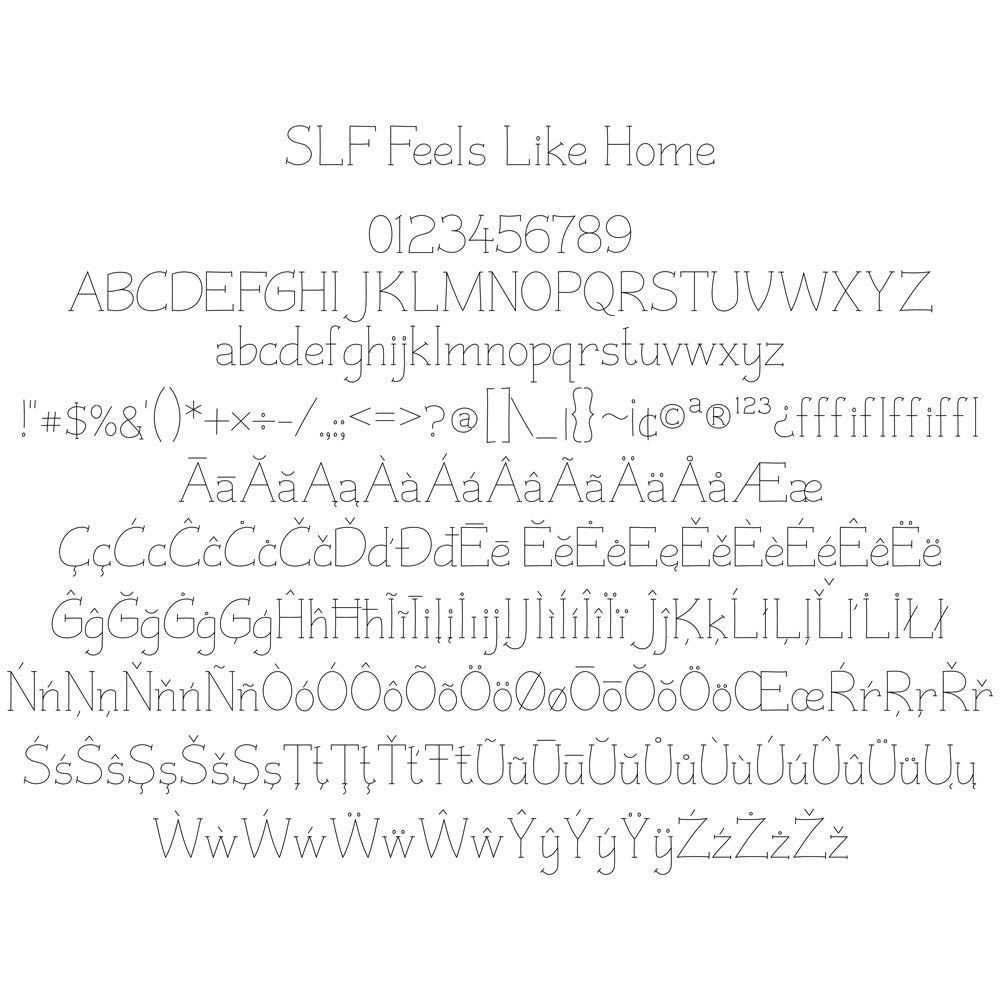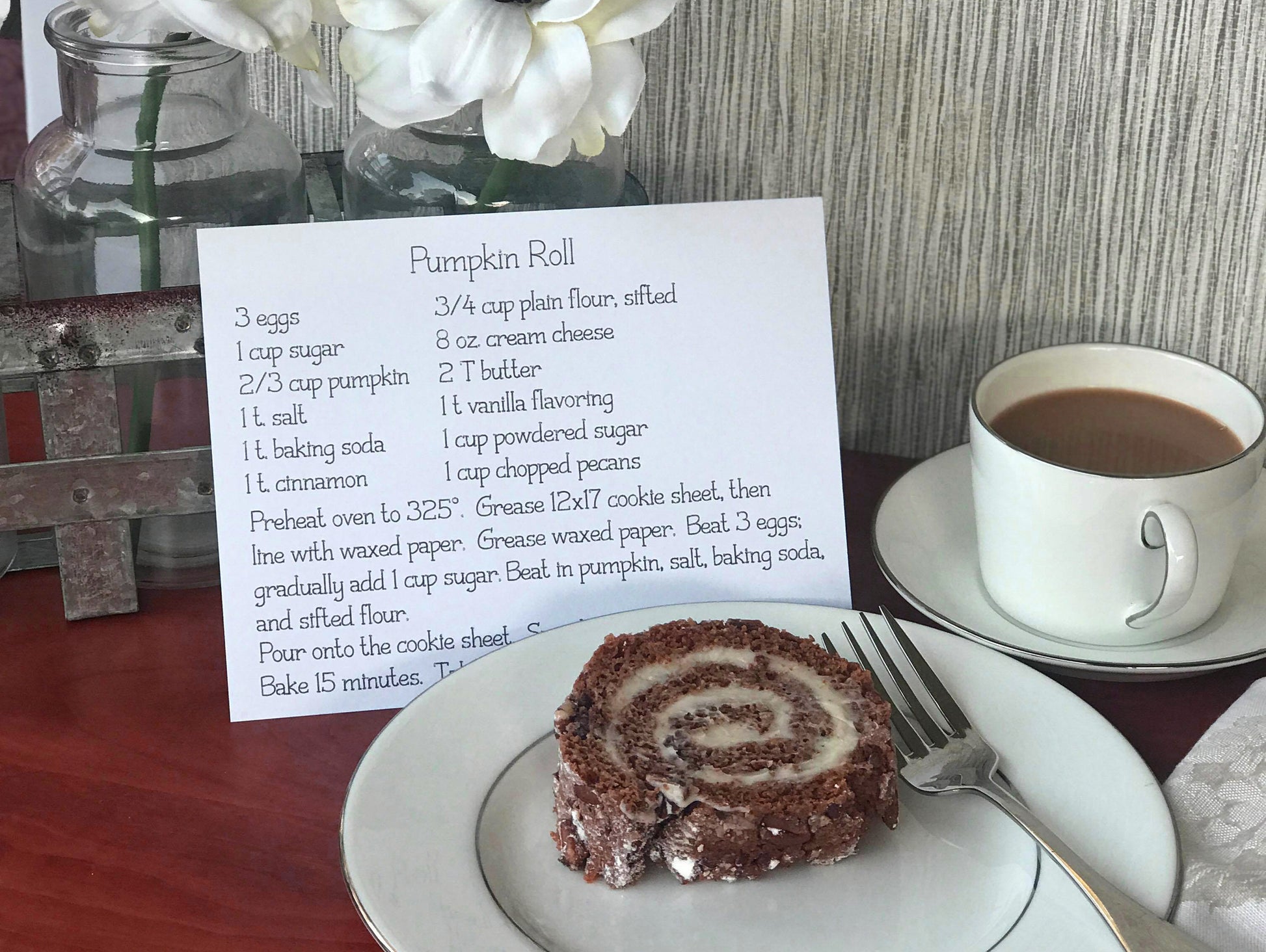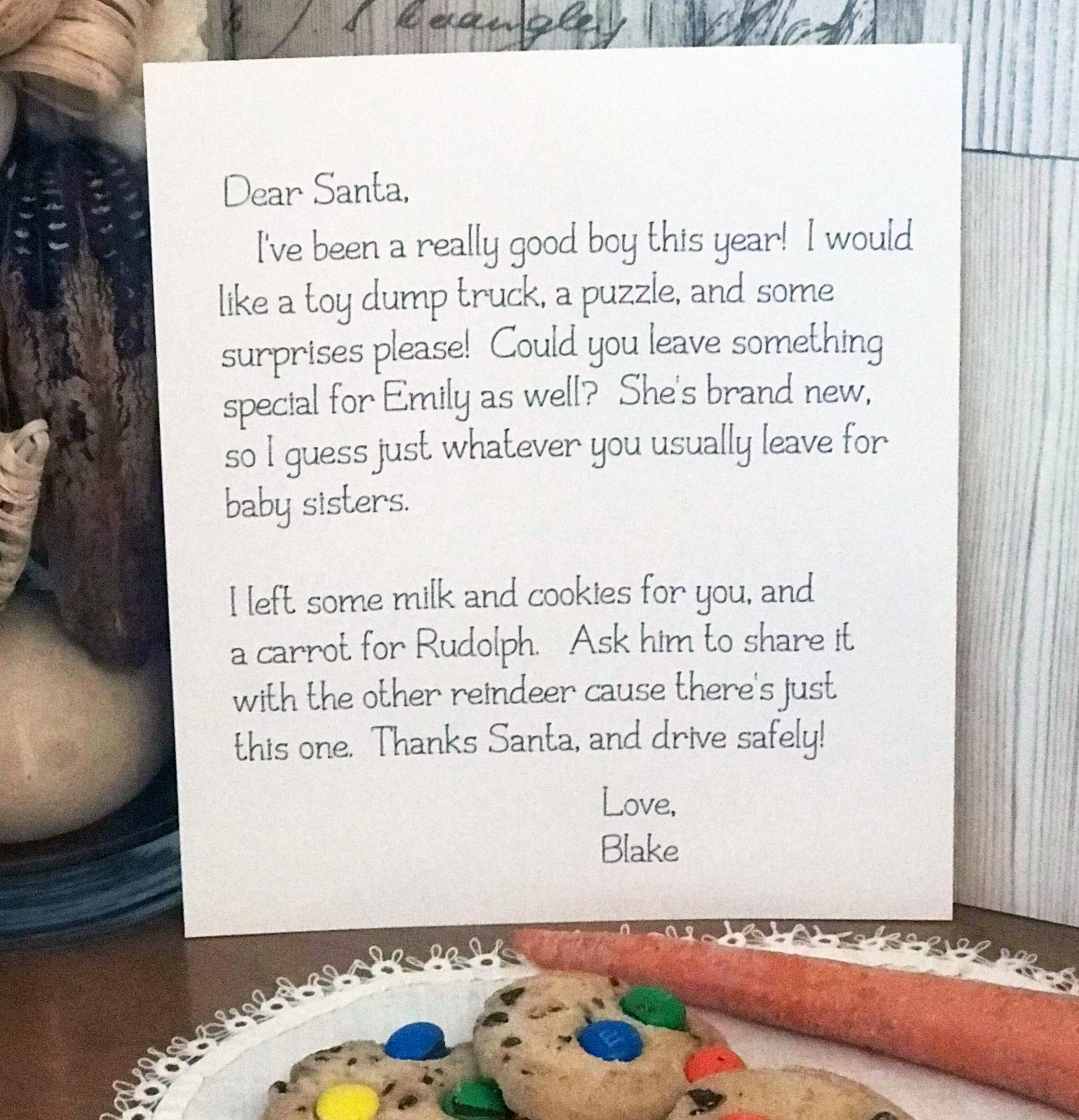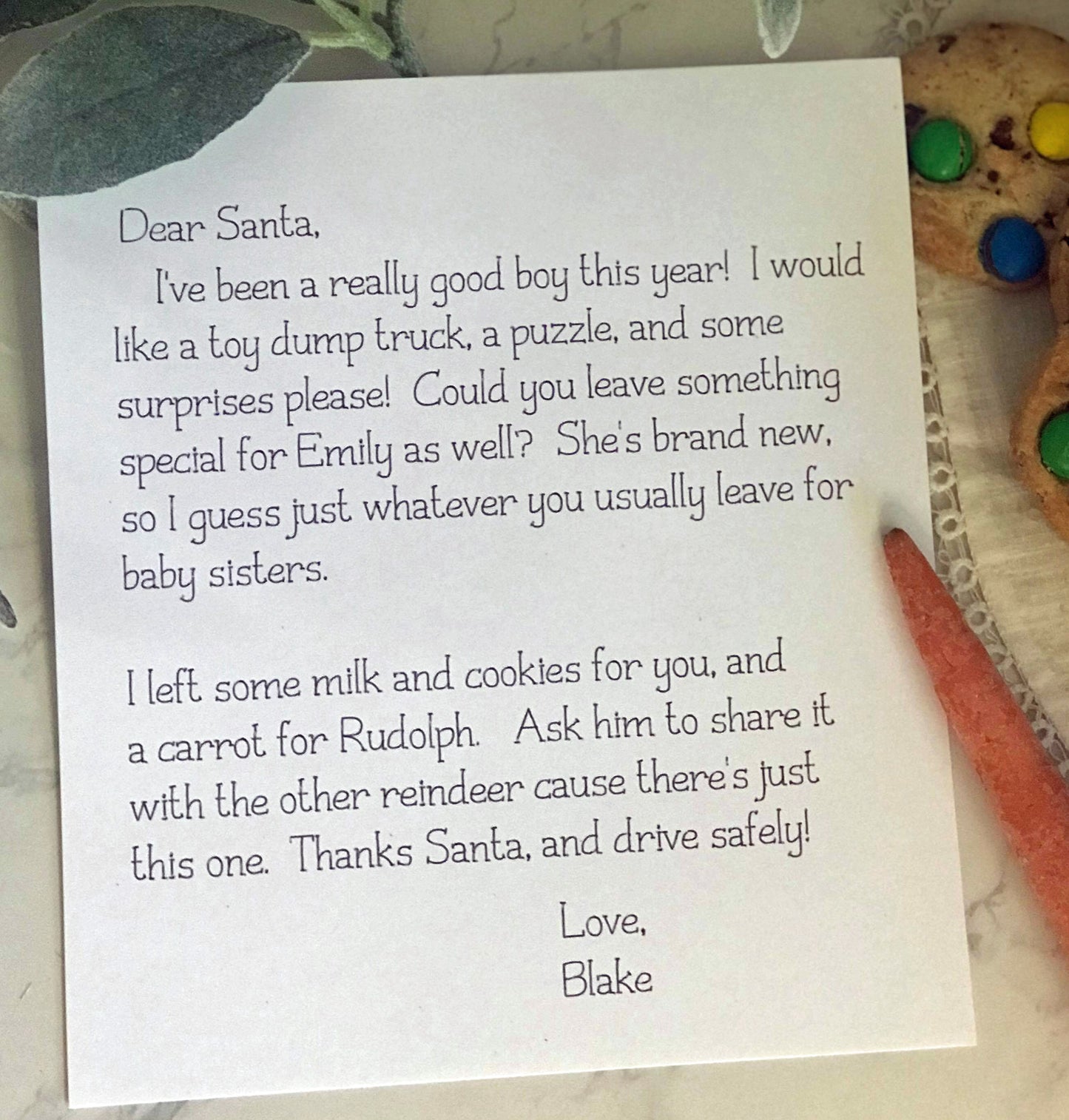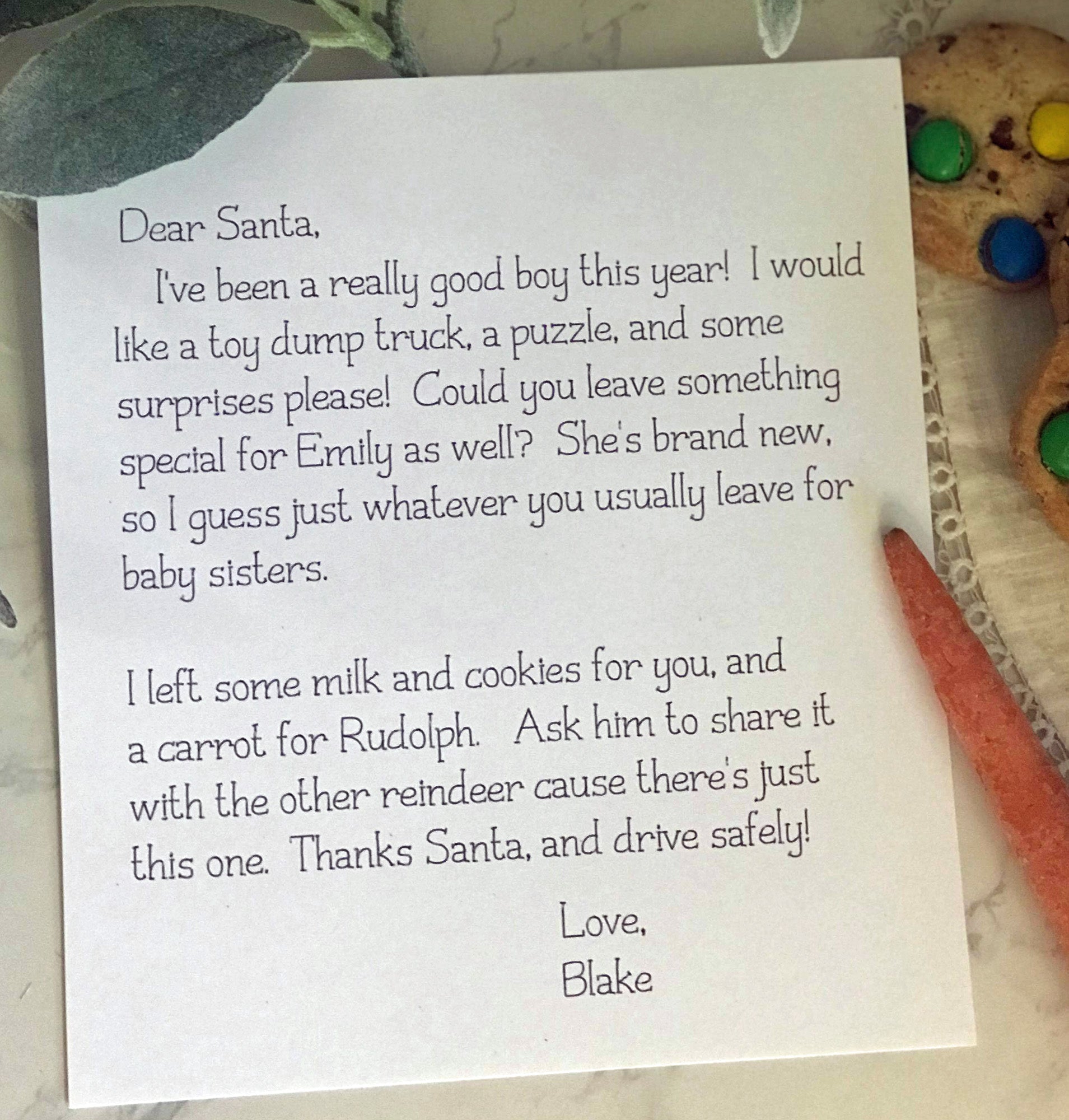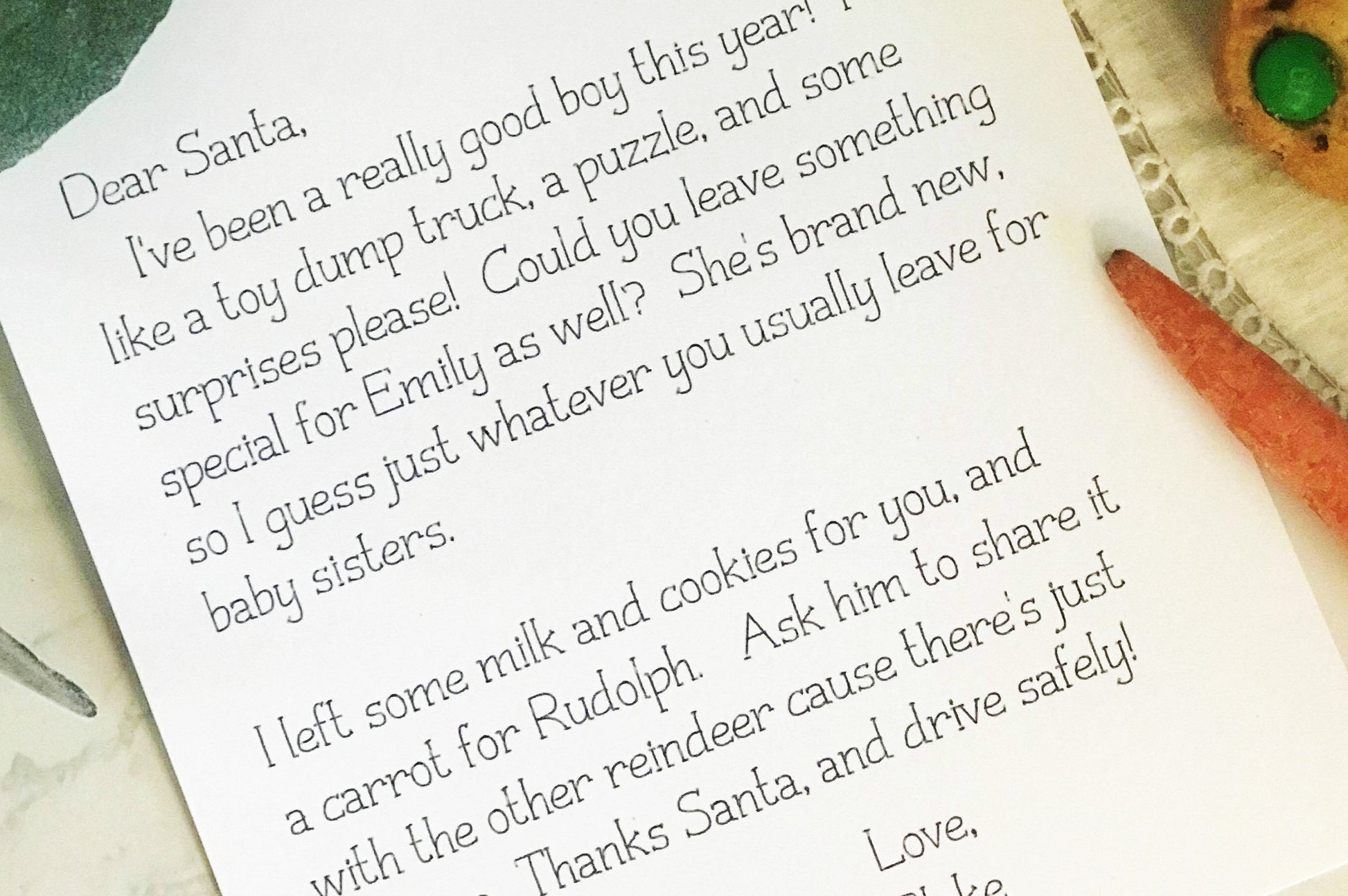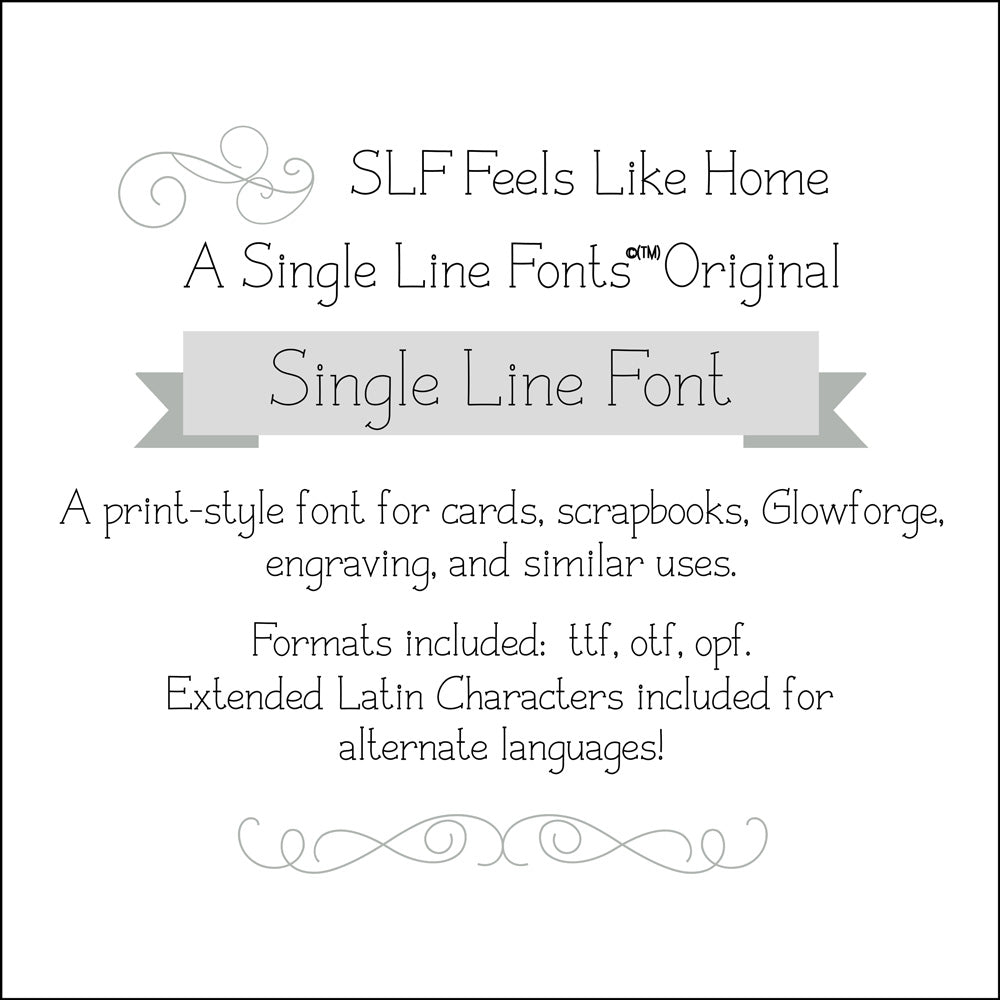
SLF Feels Like Home – Warm Single Line Font for Engraving & Home Projects
SLF Feels Like Home is a warm, welcoming single line print font with smooth, friendly curves that evoke comfort and familiarity. Its open, easy-to-read letterforms are ideal for engraving, scoring, CNC routing, and everyday creative craft projects. Perfect for home décor, personalized gifts, labels, signage, and cozy design layouts.
This monoline font includes a complete character set with uppercase and lowercase letters, numbers, punctuation, symbols, and accented characters for multilingual support.
• Home décor signs, labels, cards, and cozy gift projects